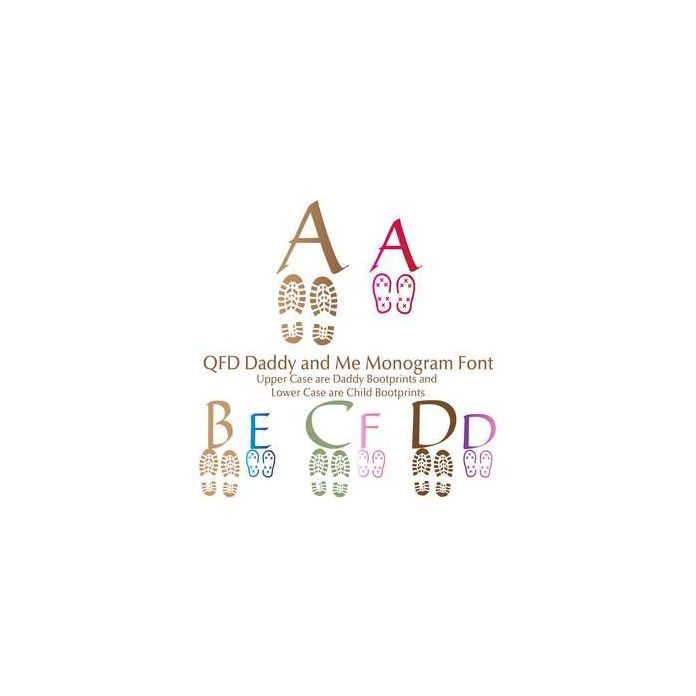
Use the upper case for the Daddy boots and the lower case for the child boots! Perfect for cards, pillows, invitations, wall art, t-shirts, mugs and anything else you can think of.